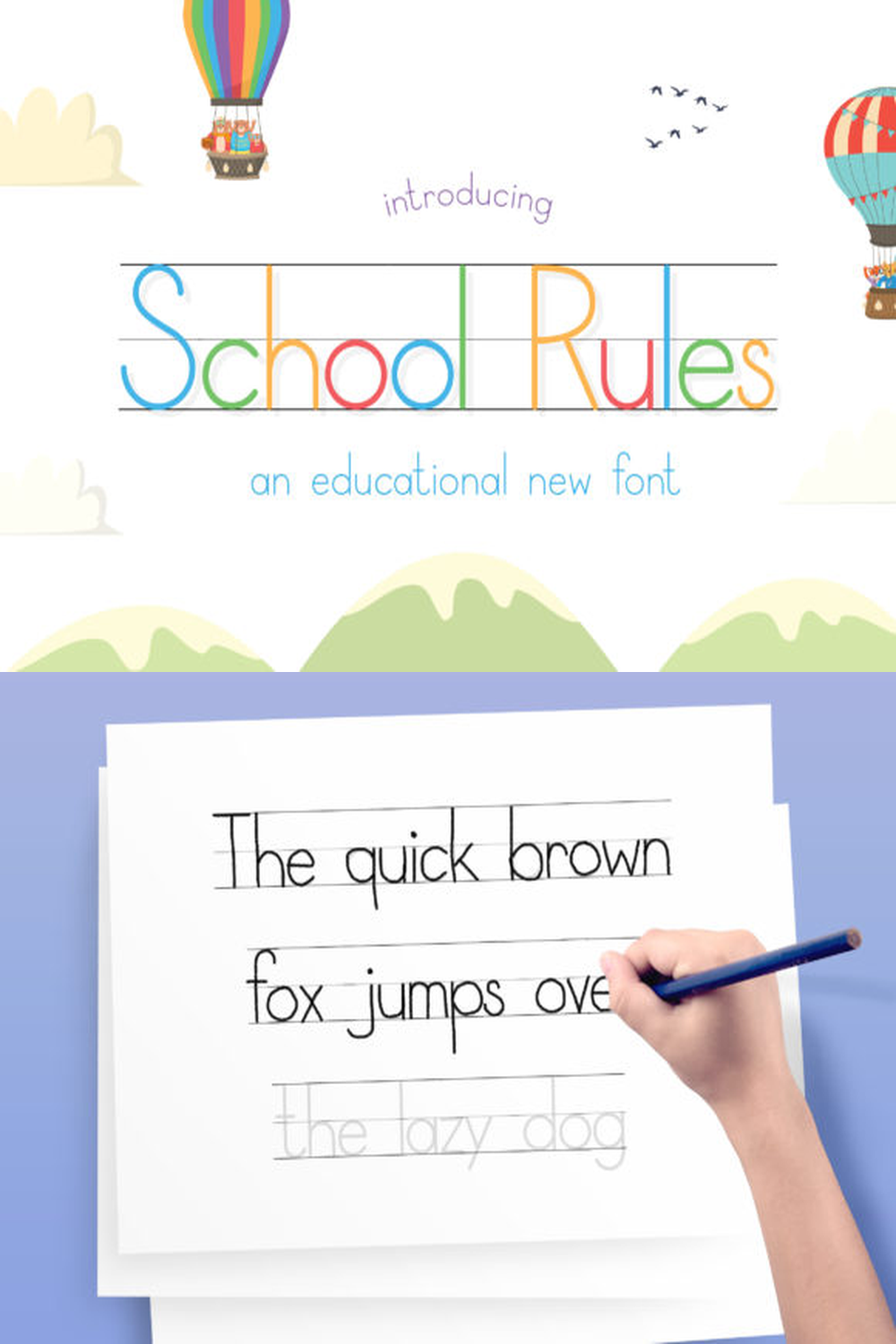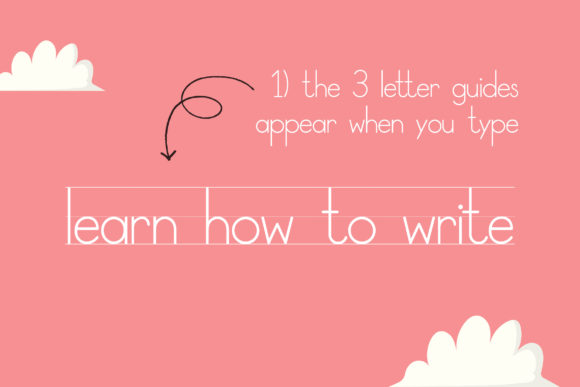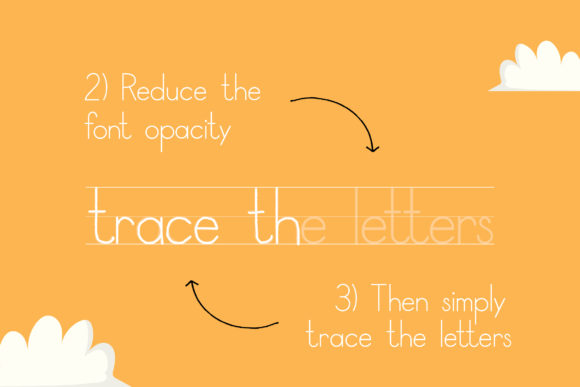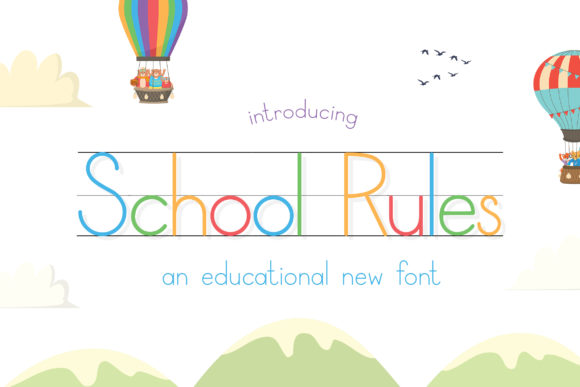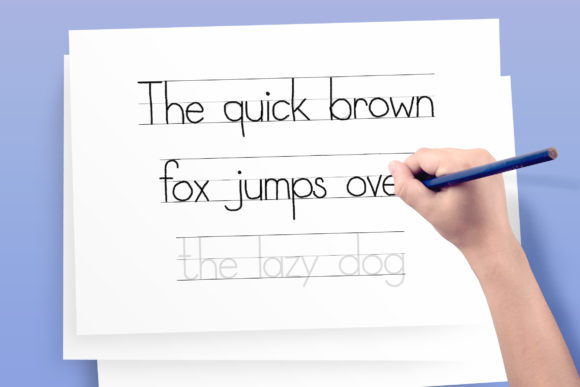
School Rules Font
About the School Rules Font
Presenting School Rules Font, a unique and stylish typeface that will make your work stand out. School Rules is a minimal and neat sans serif font. It can easily be matched to an incredibly large set of projects, so add it to your creative ideas and notice how it makes them stand out!